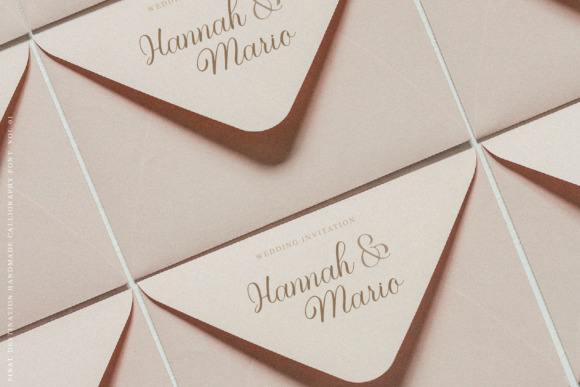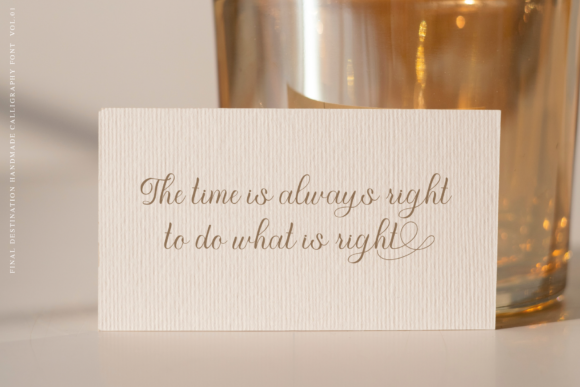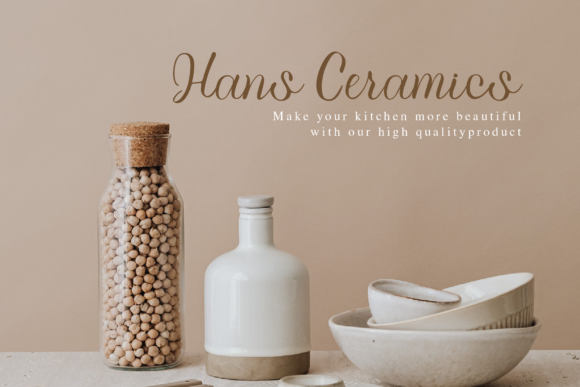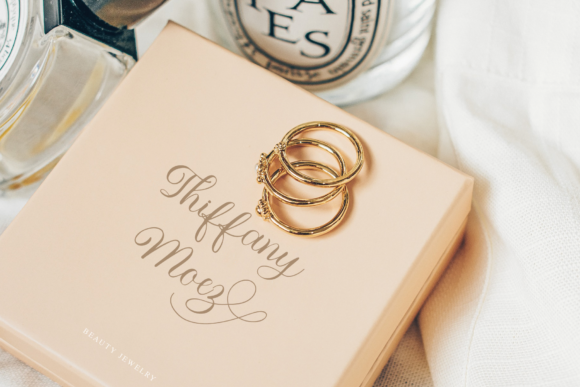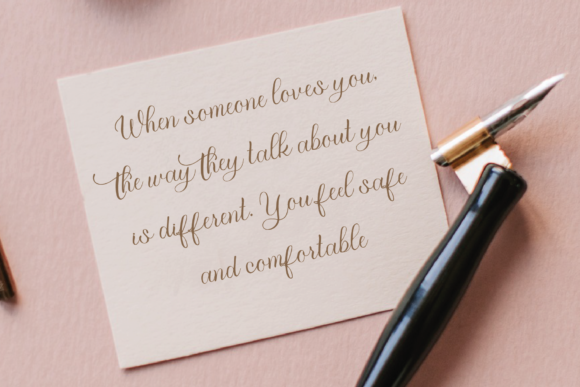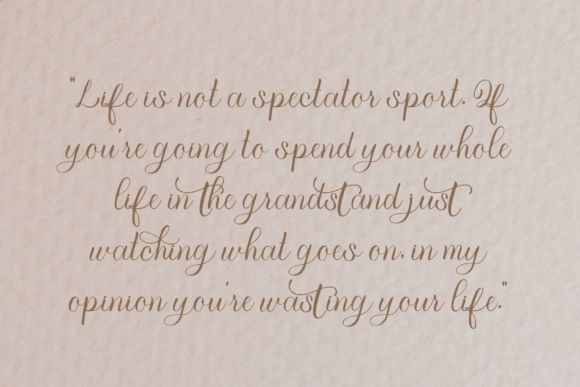
The Elusive Perfect Font: My Journey with Final Destination Font
Ah, the perfect font – a designer’s holy grail. I’ve lost count of how many projects I’ve worked on, only to get stuck on that one crucial detail: the font. My client wanted something elegant, yet playful; something that would make their brand stand out, but not scream for attention. And then, I stumbled upon Final Destination Font. ✨
It was love at first sight. The delicate, flowing lines seemed to dance across my screen, and I knew I had found what I was looking for. But, as with any font, it’s not just about looks – it’s about functionality, versatility, and ease of use. So, let’s dive into the world of Final Destination Font and see if it’s truly the perfect fit for your next design project.
An Honest Review: The Good, the Bad, and the Quirky
- ✨ Elegant and flowing design: Final Destination Font is a beautiful, handwritten font that exudes sophistication and elegance.
- ✅ Well-balanced characters: Each character is carefully crafted to ensure a smooth reading experience, making it perfect for body text or headings.
- 🔥 PUA encoded: With PUA encoding, accessing glyphs and swashes is a breeze, giving you creative freedom to experiment with different styles.
- 🌈 Versatile: This font can be used in a wide range of designs, from wedding invitations to branding materials, and even digital media.
While Final Destination Font is an excellent choice, there are a few things to keep in mind: ⚠️
- 🤔 Limited use in very formal or corporate designs: Due to its elegant and playful nature, this font might not be the best fit for very formal or corporate designs.
- ⚠️ Some characters may require manual kerning: As with any font, you might need to adjust kerning for certain character combinations to achieve optimal results.
The Designer Inspiration Behind Final Destination Font
While the true story behind Final Destination Font remains a mystery, it’s easy to imagine a designer pouring their heart and soul into creating this beautiful font. Perhaps they were inspired by the flowing lines of handwritten calligraphy or the elegance of traditional typography. Whatever the inspiration, the result is a font that’s both timeless and versatile.
Q: Is Final Destination Font suitable for body text?
A: While Final Destination Font is elegant and beautiful, it may not be the best choice for long body text. Its delicate design may be difficult to read in large blocks of text. However, it’s perfect for headings, titles, or short paragraphs.